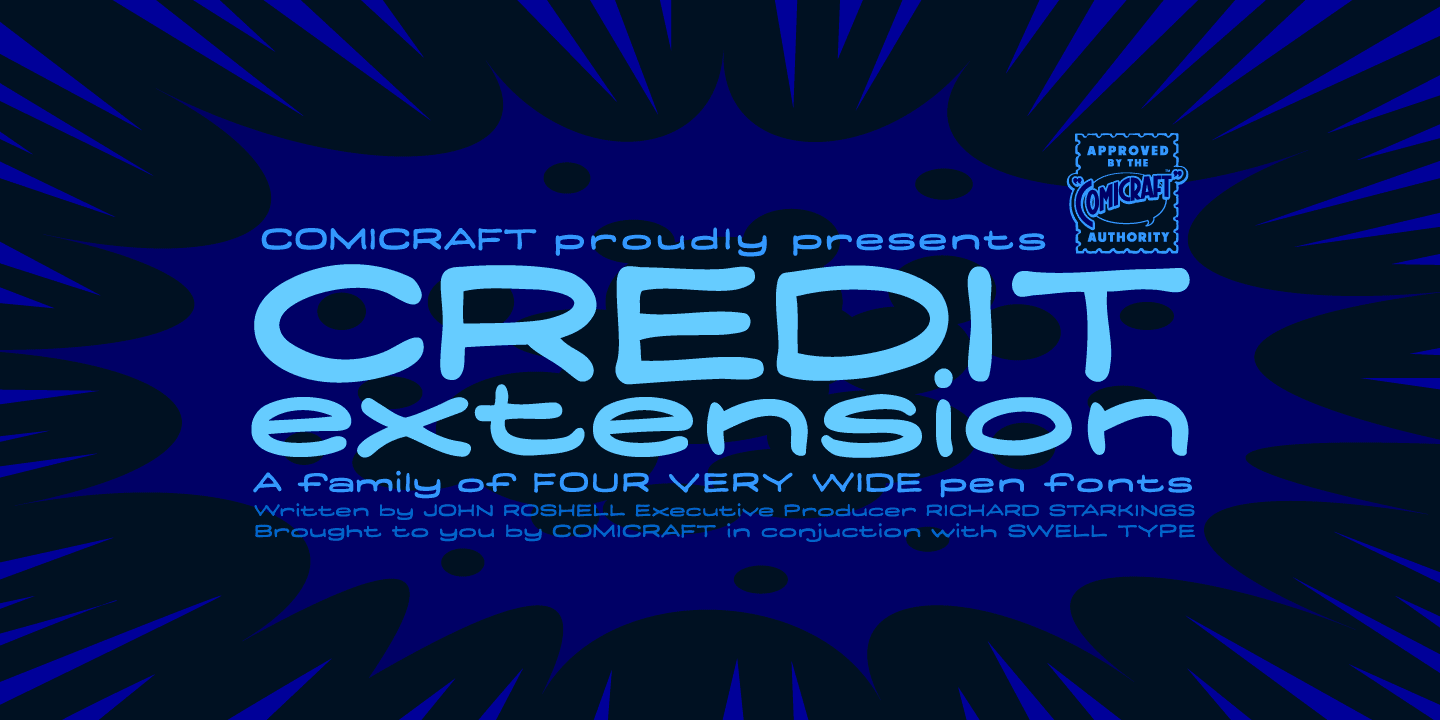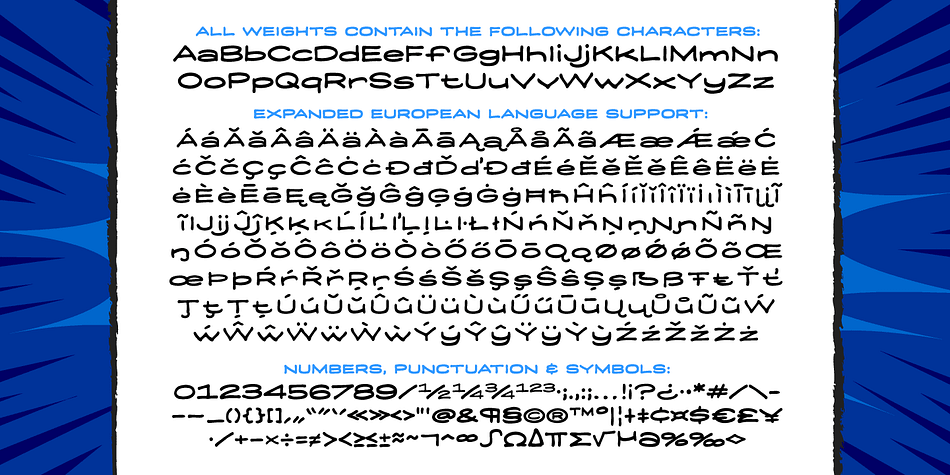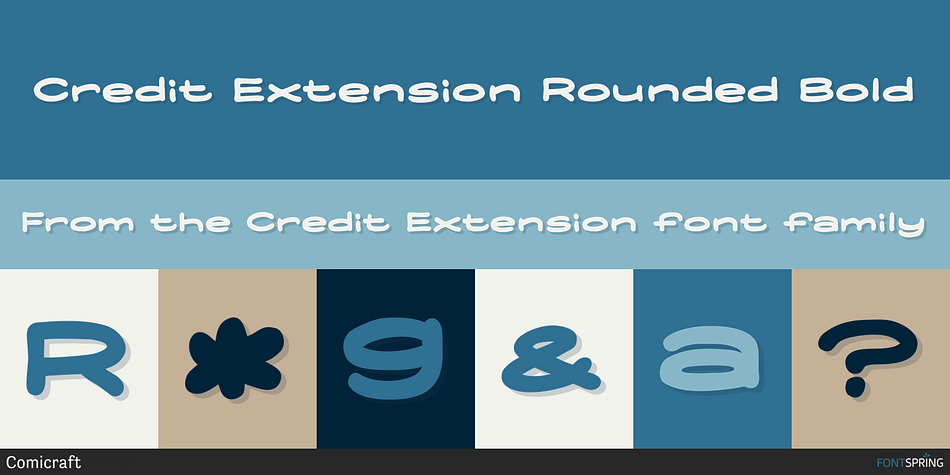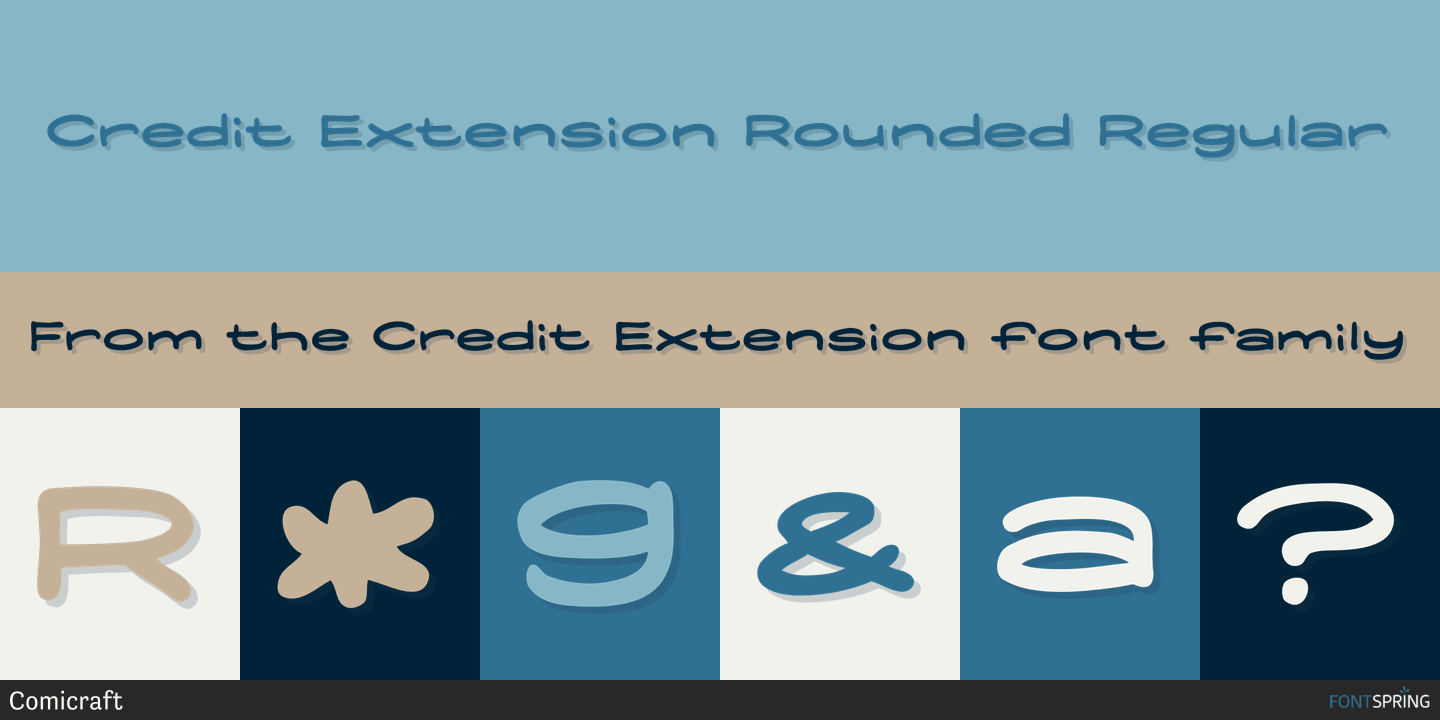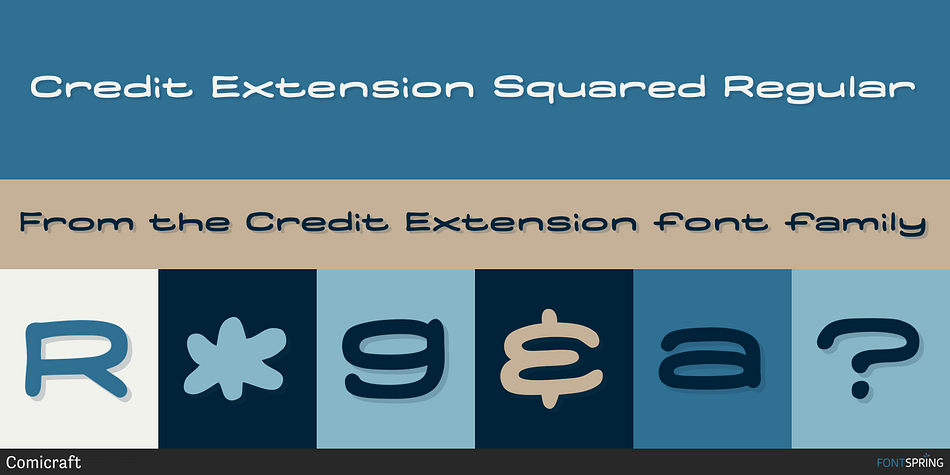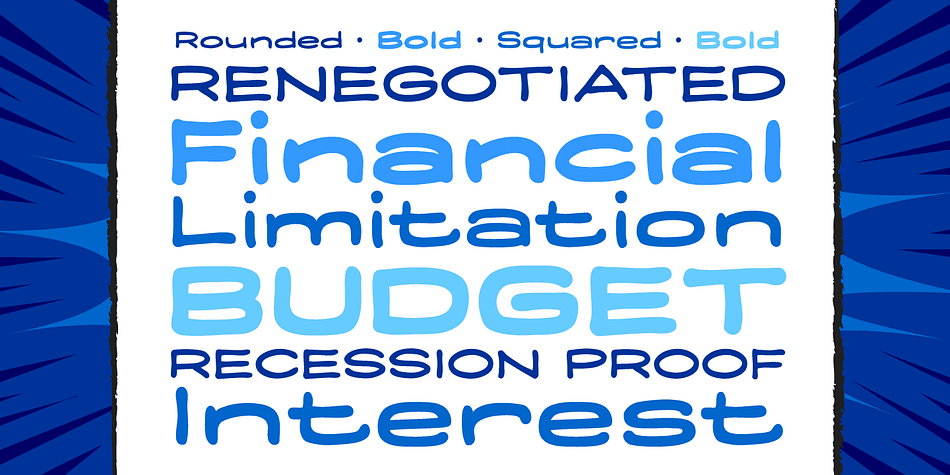
Designed by John Roshell, Credit Extension is a hand display font family. This typeface has four styles and was published by Comicraft.
At Comicraft we’re always looking for new ways to help our loyal customers get more bang for their buck. There are times when when the big financial instituitons turn their backs on the average working Joe, but that’s why we want to help you restructure your finances, renogotiate your commitment to font purchases… We’re here to help you stretch your dollars a little further.
With that in mind, our latest release is twice as wide as our usual fare and will help you make it to the end of the month in ways other fonts won’t! It’s not so much a bailout or a refi… It’s more of a credit extension. I wonder what we should call it?